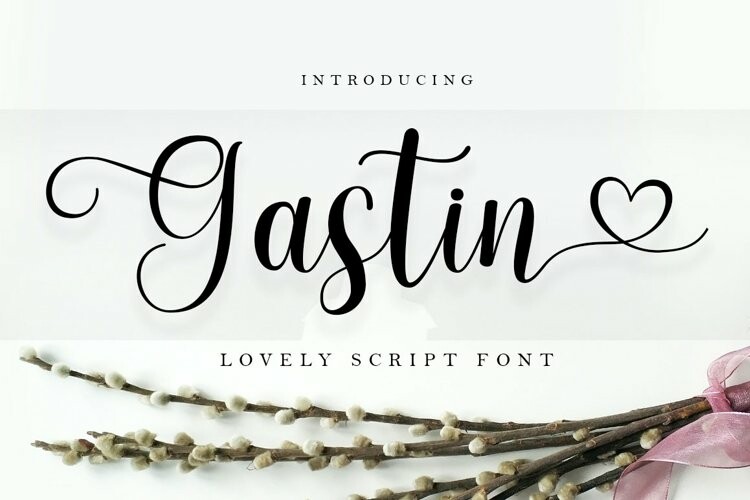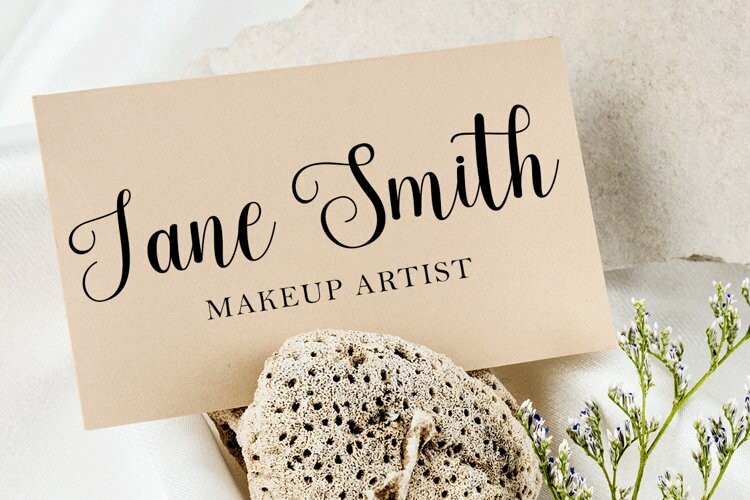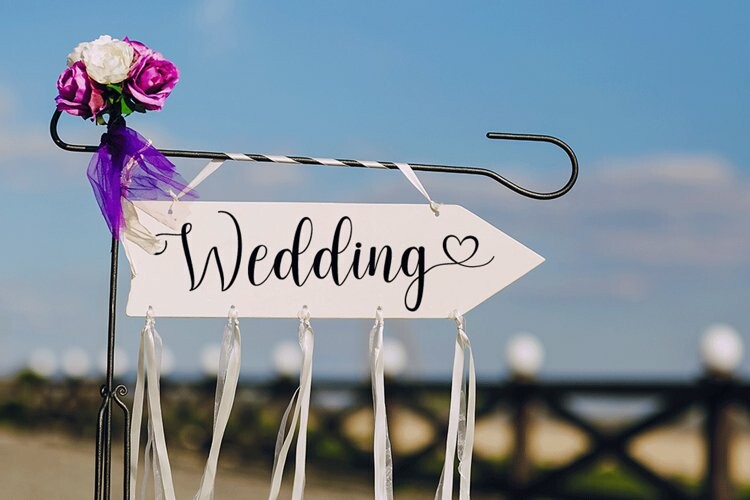
Gastin Font
Gastin FontGastin Script is a modern calligraphic design, including Regular. This font is casual and pretty with a stroke. It can be used for various purposes. such as logos, product packaging, wedding invitations, branding, headlines, signage, labels, signatures, book covers, posters, quotes, and many more.